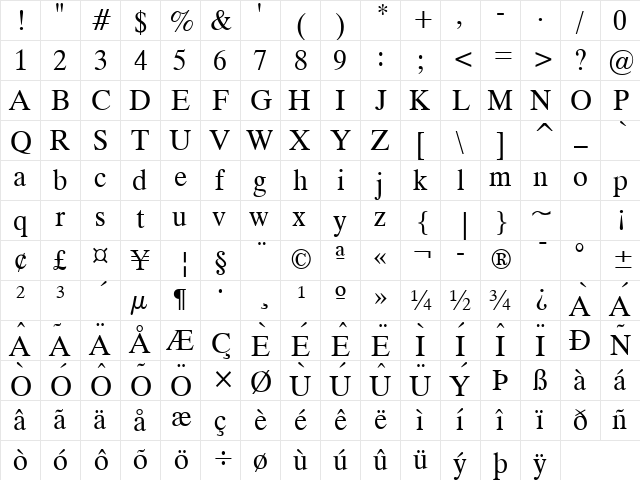
Duke Wide Normal
Design Context for Duke Wide
Duke Wide is a composed and adaptable typeface that performs quietly and consistently across a wide range of design contexts.